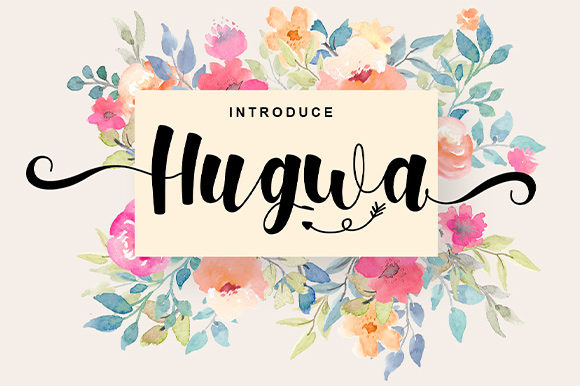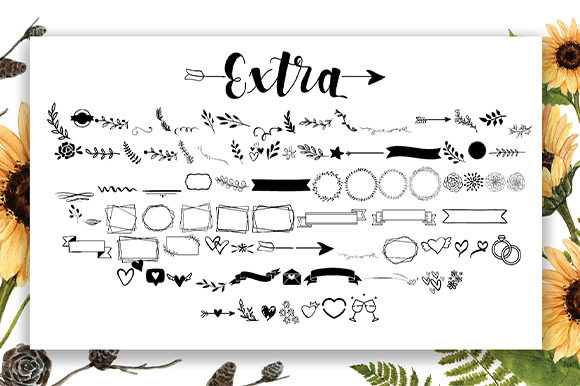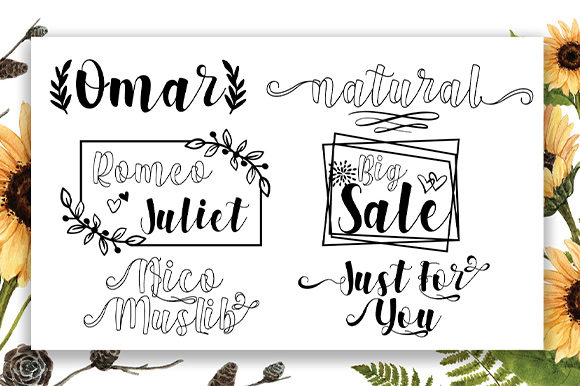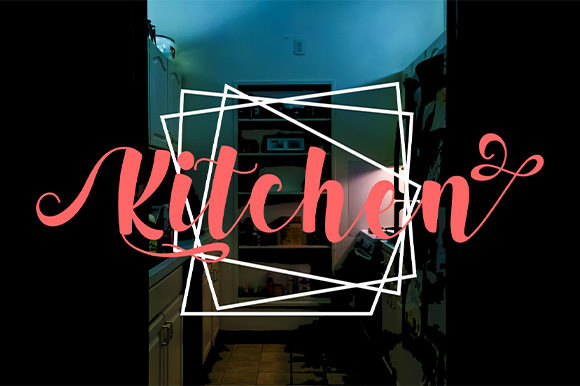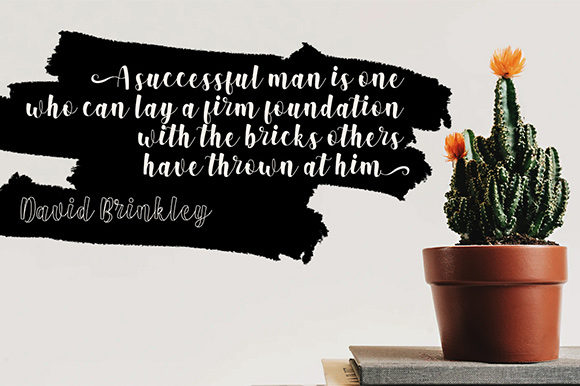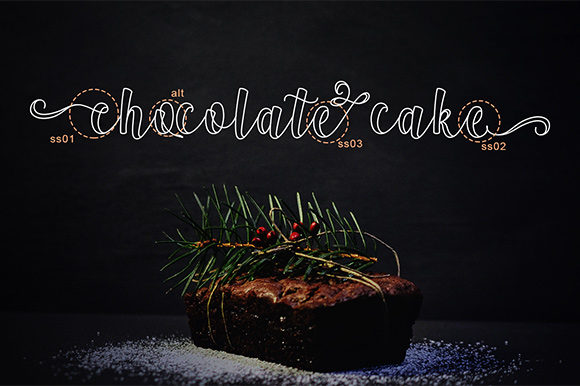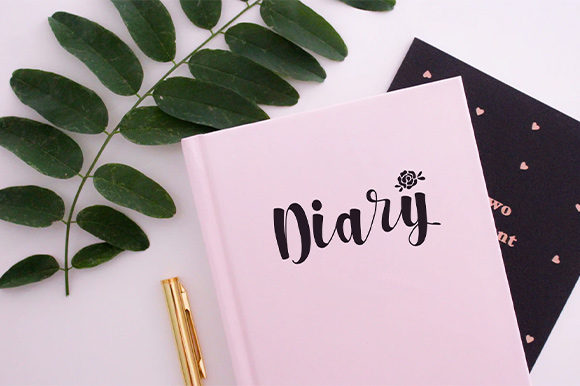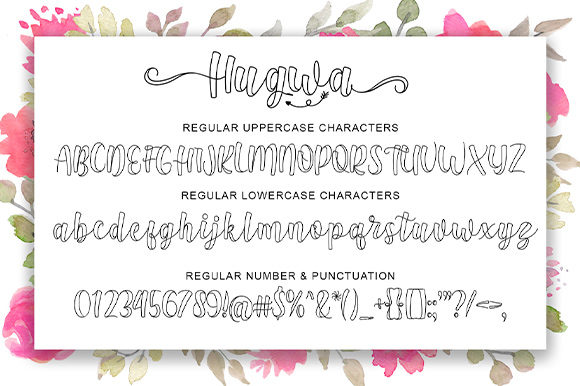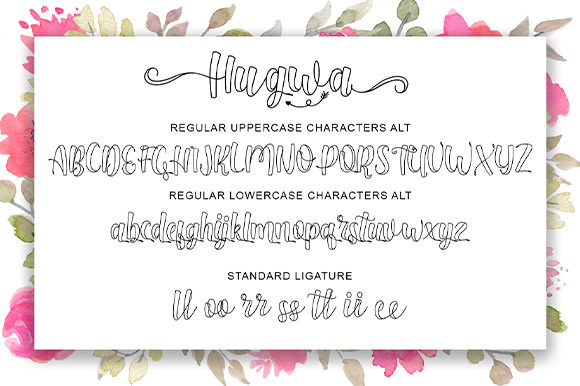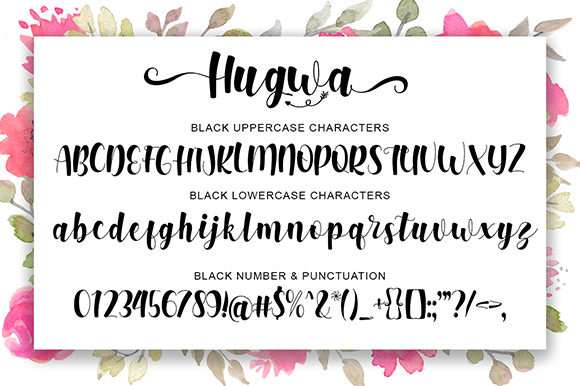
HomeScript FontsHugwa Font Script Fonts Hugwa Font FacebookXPinterestWhatsApp Hugwa Font Poster 2 Hugwa Font Poster 3 Hugwa Font Poster 4 Hugwa Font Poster 5 Hugwa Font Poster 6 Hugwa Font Poster 7 Hugwa Font Poster 8 Hugwa Font Poster 9 Hugwa Font Poster 10 Hugwa Font Poster 11 About Hugwa Font Hugwa is a sweet and charming handwritten font. Get inspired by its unique touch. DOWNLOAD ON CREATIVE FABRICAThis font is sold and delivered by Creative Fabrica. Font Canyon may earn a commission if you buy through this link. People also explored Fettrix Font Kiaspora Font Melodies Crystal Font Estilas Font Brushfire Arthique Font Washington Yesterday Font Vintage Dingbat Font Marine Font 354 0 TagsHugwa Font Previous articleGempi FontNext articleRowlink Story Font LEAVE A REPLY Cancel reply Comment: Please enter your comment! Name:* Please enter your name here Email:* You have entered an incorrect email address! Please enter your email address here Website: Save my name, email, and website in this browser for the next time I comment. Personal Use Free BD Lofi Personal Use Free Read more about this font Ciggs Personal Use Free Read more about this font Planet Benson 2 Personal Use Free Read more about this font Bruttney Personal Use Free Read more about this font BLOG 5 Fonts That Will Dominate Design Trends in 2026 5 Fonts for 2026 That Will Dominate Design Trends Typography plays a critical role in visual communication, and as we look ahead to 2026, it’s... To increase your work productivity, choose the most readable fonts. How to Cut Any Font on Cricut: Convert a Font to SVG (Free) Modern Sans-Serif Fonts That Brands Love in 2025